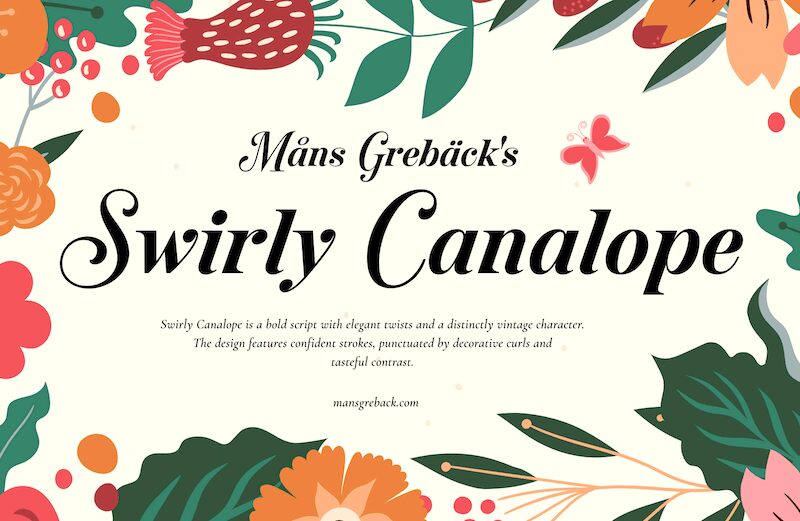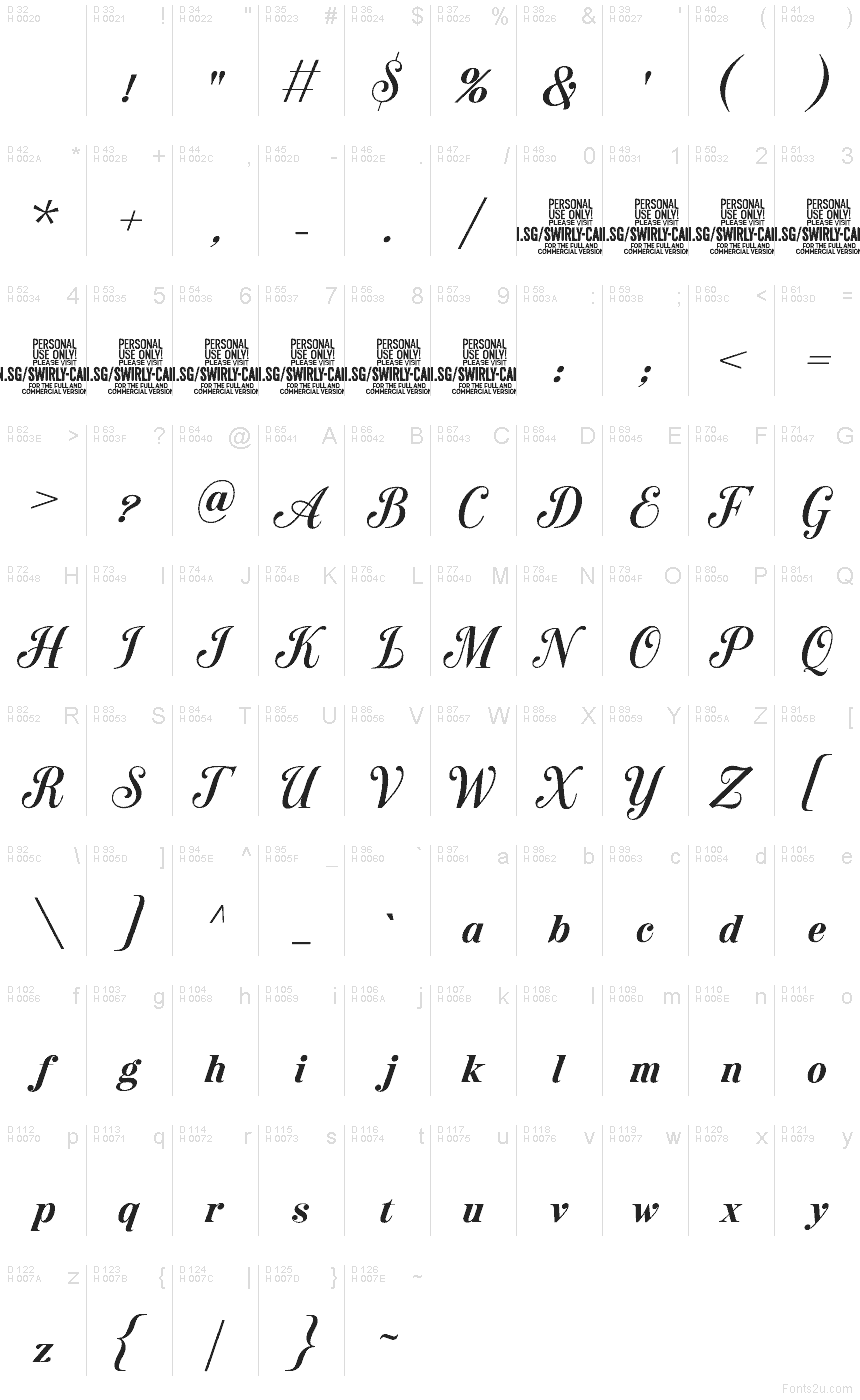
Swirly Canalope PERSONAL USE Regular
Swirly Canalope font by Mans Greback is a free calligraphy typeface that pours across the page like wet ink from a well-loved nib. Tall, sweeping capitals curl into generous swashes, while the lowercase letters knit together in a smooth, steady rhythm that’s both romantic and readable. The strokes feel lush and inky without getting fussy, giving Swirly Canalope that rare mix of flourish and control that makes a single word feel like a hand-lettered logo.
Using Swirly Canalope, you can bring a sense of occasion to wedding invitations, save-the-dates, boutique branding, product packaging, book covers, and elegant social media graphics. This free font shines when given room to breathe at larger sizes, where every swirl and loop can be appreciated. For balance, pair it with a simple geometric sans serif for body text to keep layouts clean while letting the script take center stage.
Swirly Canalope is a bold script.